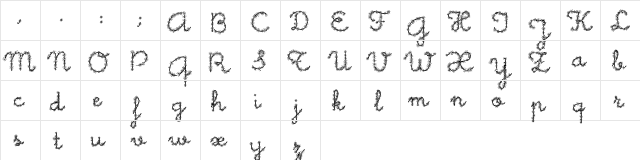
Little Daisy Regular
Design Context for Little Daisy Typeface
Little Daisy is a composed and adaptable typeface that performs quietly and consistently across a wide range of design contexts.